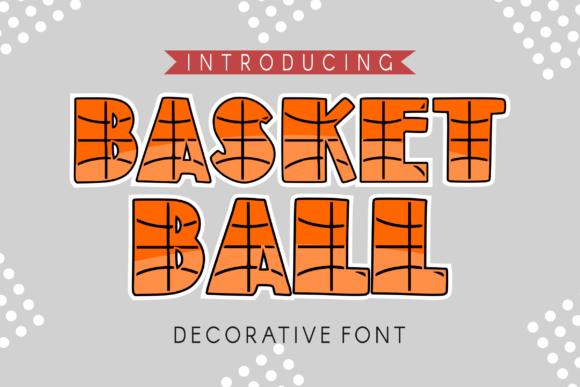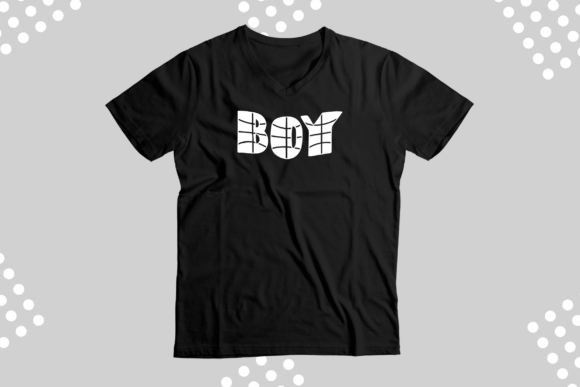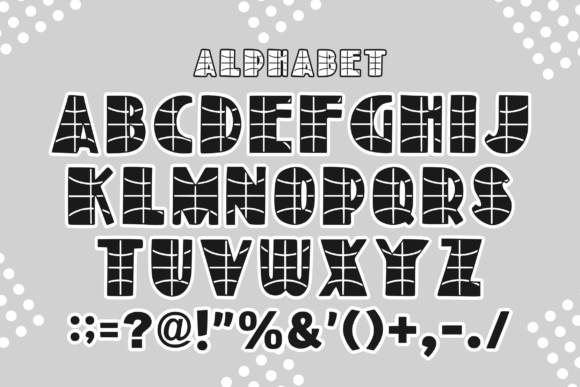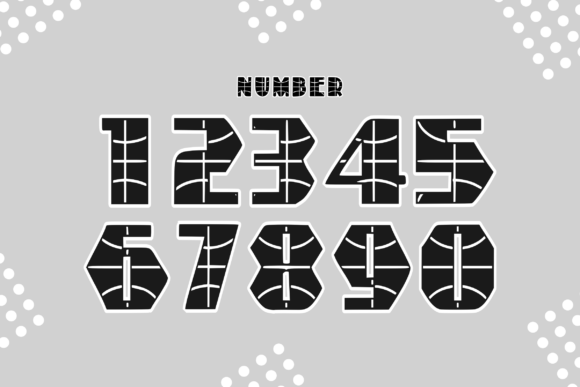
Get Ready to Dribble Your Way to Design Success
Do you remember that moment when you finally nailed a creative idea that you’ve been brainstorming for weeks? The feeling of accomplishment and excitement is unparalleled! For designers, it’s not just about landing a great concept, but also about finding the perfect visual representation to bring it to life. This is where the Basketball Font comes in – a unique, basketball-inspired font that will add a playful twist to your designs.
This delightful font is not just a pretty face; it’s a valuable tool for designers who want to create captivating visuals that stand out from the crowd. With its versatility, you can use the Basketball Font to craft anything from adorable invitations to sophisticated business cards, and even authentic t-shirt screen printing. Whether you’re a seasoned pro or a design newbie, this font is sure to bring a smile to your face and elevate your design game.
Basketball Font Key Features
- Font Family: Basketball Font is a custom, hand-drawn font designed specifically for sports and entertainment purposes.
- Font Size: Basketball Font is designed to be highly legible at various font sizes, ranging from 12pt to 72pt, making it suitable for use in a range of applications, from signage to digital displays.
- Unique Characteristics: The font features a dynamic, energetic feel, with bold lines and playful letterforms that evoke the excitement and movement of basketball.
Basketball Font Review
I recently had the chance to work with the Basketball Font, and I have to say, it’s a unique and interesting choice for any sports-themed project. ✨ One thing that stands out is its high level of customization options. The font can be easily adjusted to fit your specific needs, whether you’re looking to emphasize team logos or create dynamic graphics for a sports broadcast.
Another positive aspect is its ability to be used in a variety of contexts. From digital screens to print materials, the Basketball Font adapts well to different mediums and sizes. ✨ The font’s bold and energetic feel also makes it perfect for conveying the excitement and energy of basketball.
While the Basketball Font has its strengths, there are a few limitations to be aware of. ⚠️ One of the main concerns is its readability at smaller font sizes. The font can become slightly illegible when scaled down, which may be an issue for projects that require a lot of text.
In conclusion, the Basketball Font is a solid choice for any project that requires a sports-themed font. While it may have some limitations, its high level of customization and adaptability make it a versatile option. Overall, I would give the Basketball Font 4 out of 5 stars.
Recommendation
I would recommend the Basketball Font for projects that require a bold and energetic feel. However, it may not be the best choice for projects that require a lot of text or readability at smaller font sizes.
- High level of customization options
- Adaptable to different mediums and sizes
- Bold and energetic feel
- May become illegible at smaller font sizes
Basketball Font: A Practical Application Guide
Use the Basketball Font to create eye-catching headlines and titles. Experiment with different font sizes and colors to add visual interest to your design.
Combine the Basketball Font with other fonts to create a unique and dynamic typography style.
The Basketball Font is perfect for sports-themed designs, such as basketball jerseys, posters, and flyers. It’s also great for creating energetic and playful designs for kids’ products, such as t-shirts and stickers.
Alternatives to Basketball Font
1. Rockwell
Rockwell is a serif font that is often used for titles and headings. It has a strong, bold appearance that is reminiscent of the classic basketball fonts, but with a more elegant feel. Use Rockwell when you want to create a sense of tradition and sophistication.